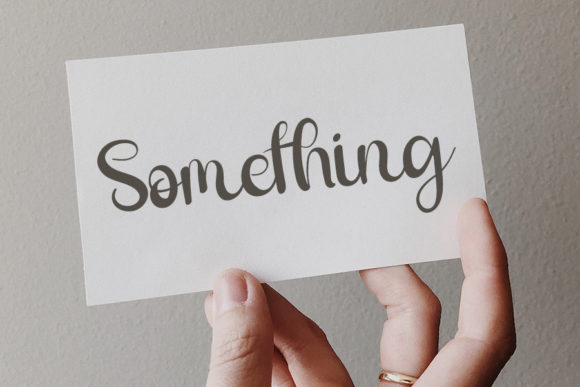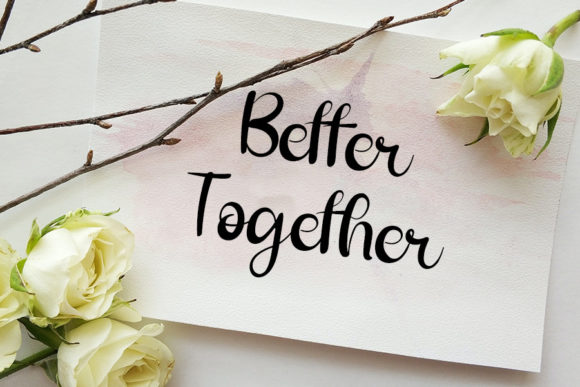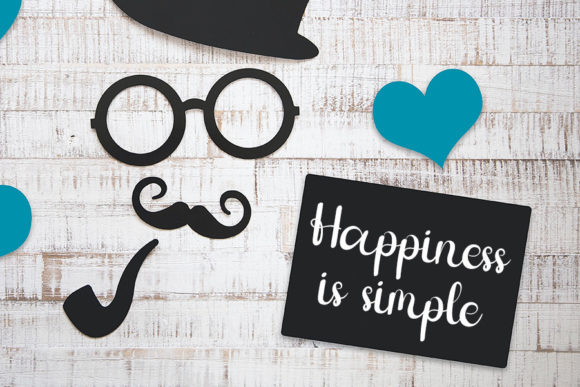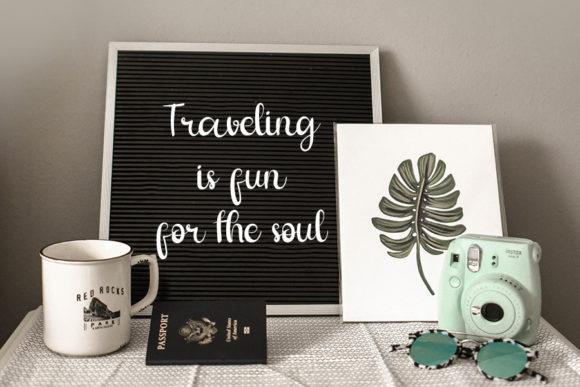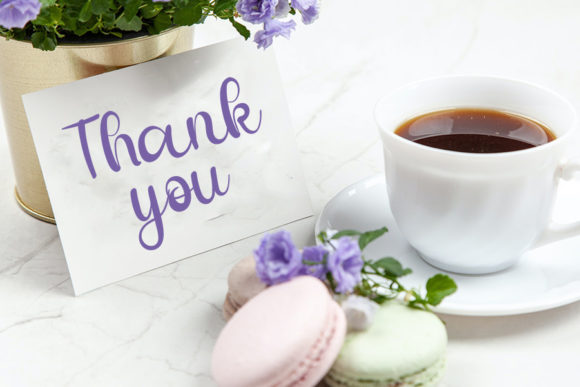
About Without You Font
Without You is a playful and smart handwritten font with an impeccable form, inspired by a timeless calligraphy. Balanced and varied, this font was designed to enhance the beauty of your projects.